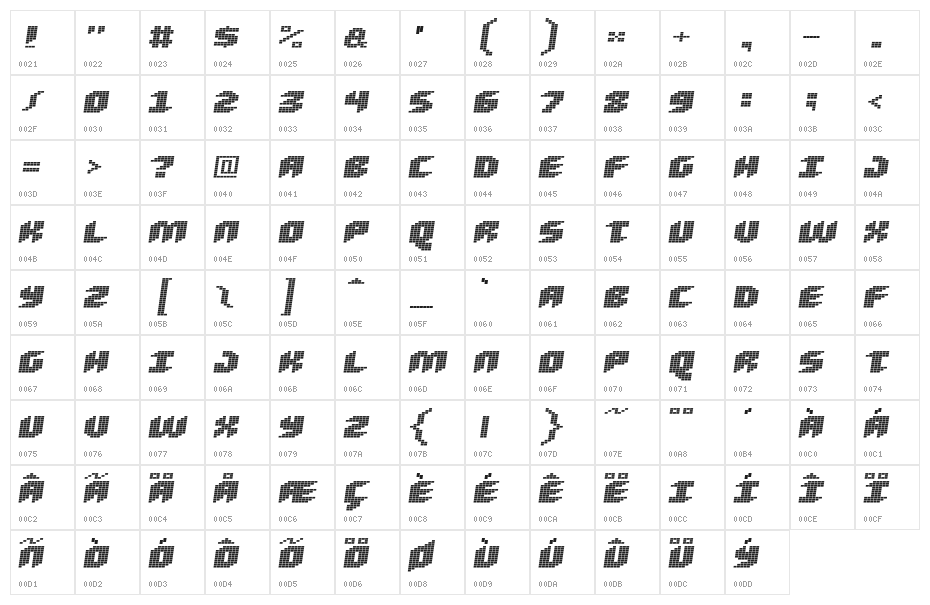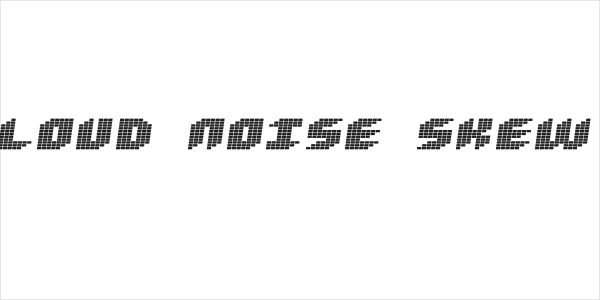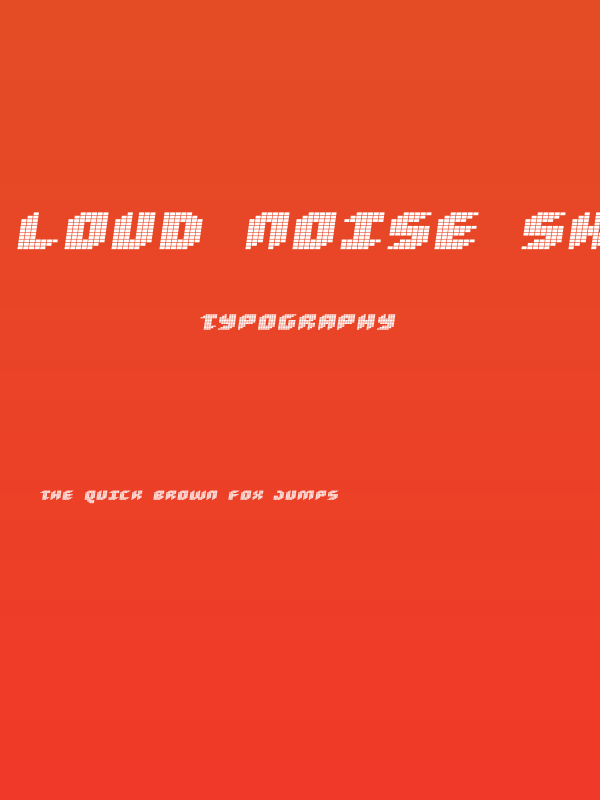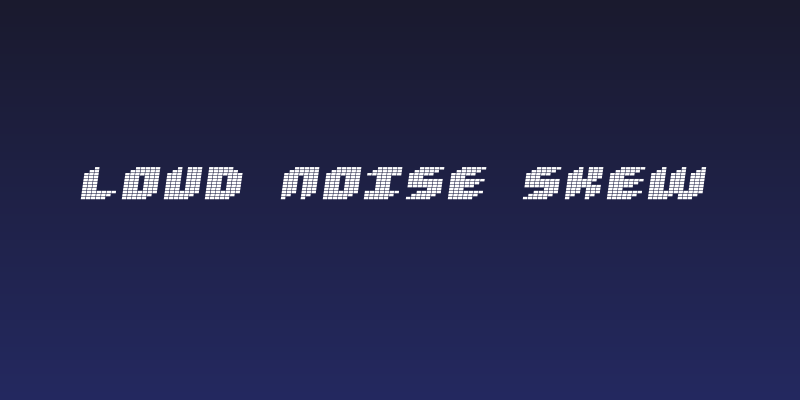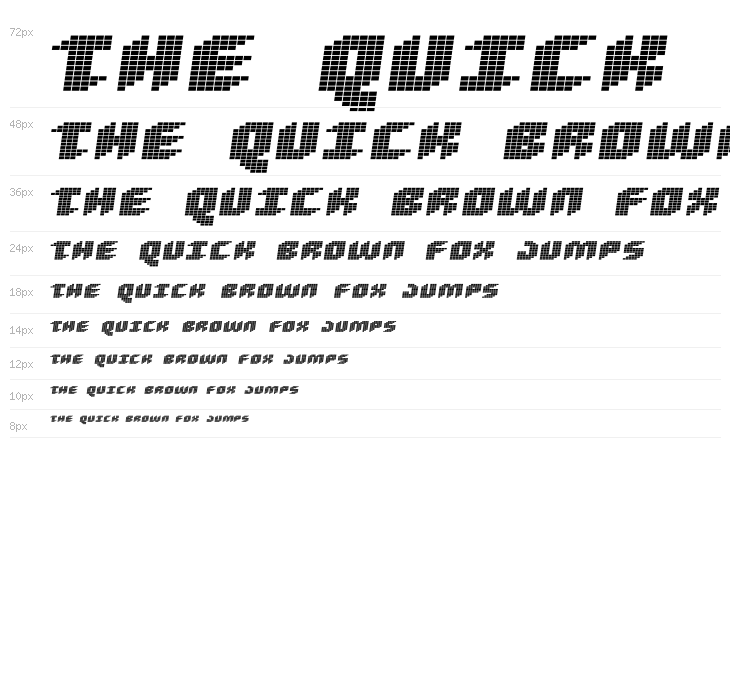
Loud noise Skew Font
Loud noise Skew Description
This font features a bold, pixelated design that mimics the appearance of digital displays or retro video game graphics. Each character is constructed from a grid of small squares, giving it a distinct, blocky look. The characters are slightly skewed, adding a dynamic and energetic feel to the text. This style is reminiscent of early digital technology, making it ideal for projects that aim to evoke nostalgia or a tech-savvy aesthetic. The uppercase and lowercase letters maintain a consistent height, and the numbers and special characters follow the same pixelated pattern, ensuring uniformity across all text elements.
| Overall Style | Retro, Digital |
| Proposed Projects | Ideal for video game design, tech-themed posters, retro digital displays, and creative branding projects. |